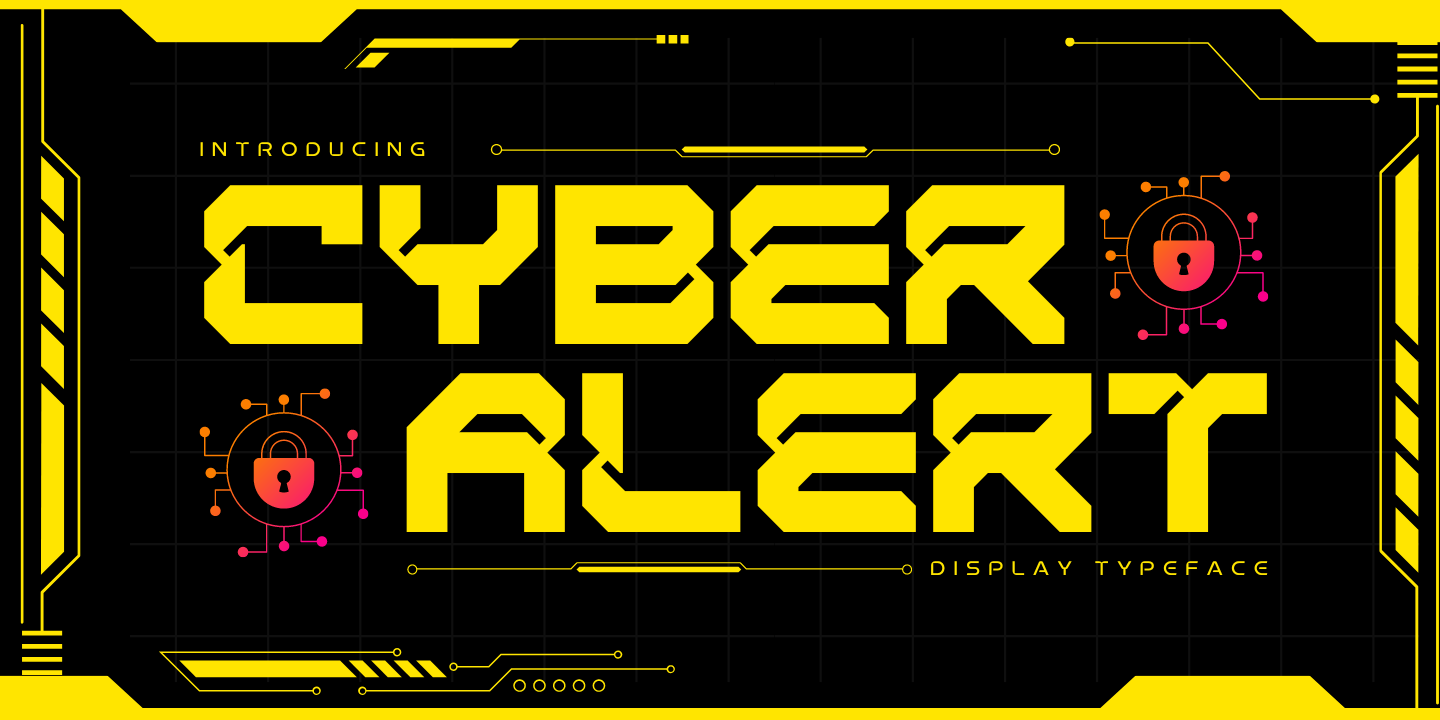
Cyber Alert Font is ideal for cybersecurity company branding, tech warning interfaces, hacker-themed movie graphics, digital security software logos, emergency alert systems, and futuristic surveillance equipment signage.
Cyber Alert Font is exciting because it perfectly captures the urgent intensity and digital precision of cybersecurity alerts, delivering a high-tech typeface that embodies vigilance, technological sophistication, and cyber defense readiness.
The Cyber Alert Font family includes digital variations: Cyber Alert Light, Cyber Alert Regular, Cyber Alert Bold, Cyber Alert Black, glitch alternates, and circuit-inspired decorative elements that enhance the font's cybernetic character.
Secure your communications with Cyber Alert Font Free Download, a cutting-edge typeface that brings digital security expertise and cyber defense authority to your most critical technology projects. This sophisticated font excels in creating authoritative branding for information security firms, penetration testing companies, threat intelligence platforms, and cybersecurity training organizations that protect digital infrastructure from malicious attacks. The precisely engineered letterforms feature sharp geometric construction with digital-inspired details that communicate technical competence, threat awareness, and protective vigilance while ensuring crystal-clear readability across all security applications. Perfect for cybersecurity conference materials, threat assessment reports, security awareness training programs, and digital forensics documentation that needs to convey expertise and trustworthiness, this font connects with audiences who understand the critical importance of cyber protection. Each character stands guard with digital precision, making every security message feel like a vital shield protecting valuable data and systems. Cyber Alert Font transforms cybersecurity communications into powerful defensive statements that inspire confidence and demonstrate unwavering commitment to digital safety.